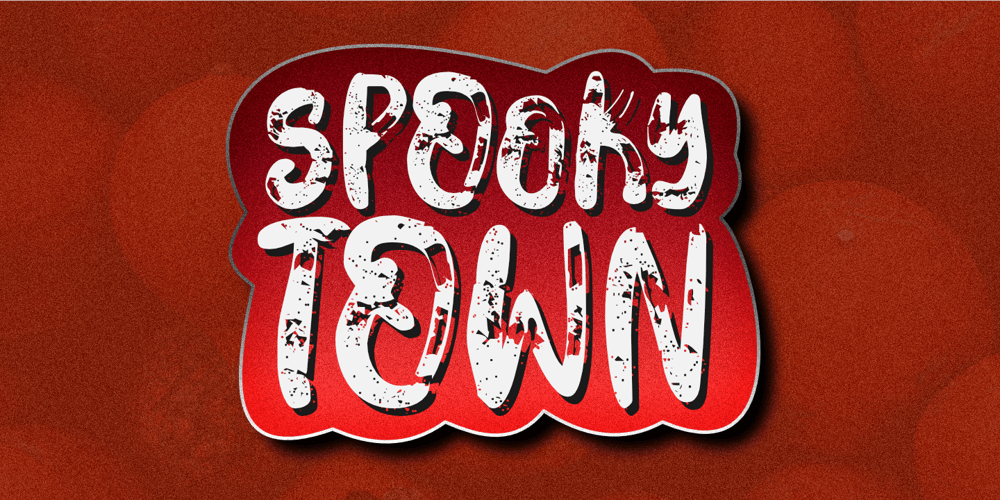
Spooky Town
Spooky Town font
Spooky Town Font Family was designed by Aldy Sidik and published by Epiclinez. Spooky Town contains 1 styles and family package options. Spooky Town is an awesome, graffiti-style display font that has a street art vibe. This font is suitable for designs such as t-shirts, sportswear, logos, advertisements, clothing, and more.This Font is supporting more than 66 languages, which include: Afrikaans Albanian Catalan Danish Dutch English Estonian Finnish French German Italian Norwegian Portuguese Spanish Swedish Zulu, and more.So what’s included : Basic Latin A-Z & a-z. Numbers, symbols, and punctuations Multilingual Support. Accented Characters : ÀÁÂÃÄÅÆÇÈÉÊËÌÍÎÏÑÒÓÔÕÖØŒŠÙÚÛÜŸÝŽàáâãäåæçèéêëìíîïñòóôõöøœšùúûüýÿžß Thank you